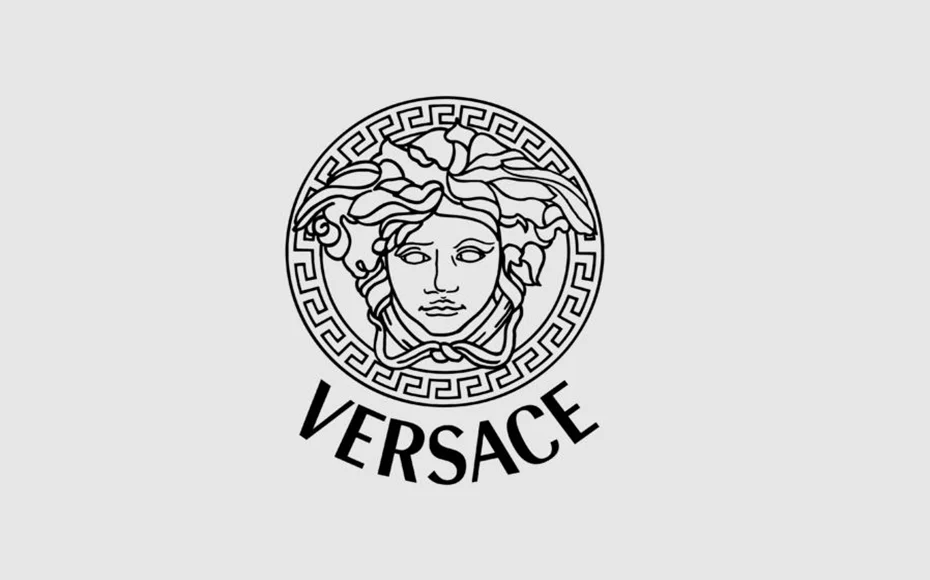
Versace is a luxury fashion brand that has been renowned for its stylish and innovative designs since its inception in 1978. The company, founded by Gianni Versace, is headquartered in Milan, Italy, and has become one of the world’s most iconic fashion houses.
The Versace logo is instantly recognizable, featuring the brand name in a unique and elegant font. The Versace font is a customized version of the classic Didot typeface, with sharp, bold lines that evoke a sense of sophistication and refinement.
The Versace font has been used extensively in the company’s marketing and advertising campaigns, as well as on its products, including clothing, accessories, and fragrances. The font has become synonymous with the brand’s image of luxury, quality, and timeless elegance.
The font used in this logo name is Radiant RR Bold Font. It was made by Robert Middleton and Steve Jackaman and shared via the Red Rooster Collection on 23 April 2002.
Style:Logo, Sans Serif, Display
Font Designer:Robert Middleton
Its bold, distinctive design reflects the company’s commitment to quality and luxury, and its use in Versace’s branding has helped to establish it as one of the world’s most recognizable and respected fashion houses.
The font is primarily used in Versace’s branding and marketing materials, including the company’s logo, packaging, and advertising campaigns.
The font is often used in a bold and dramatic way to create a sense of luxury and sophistication, which are key values of the Versace brand. It is commonly used in large, eye-catching headlines and titles to grab the viewer’s attention and make a statement.